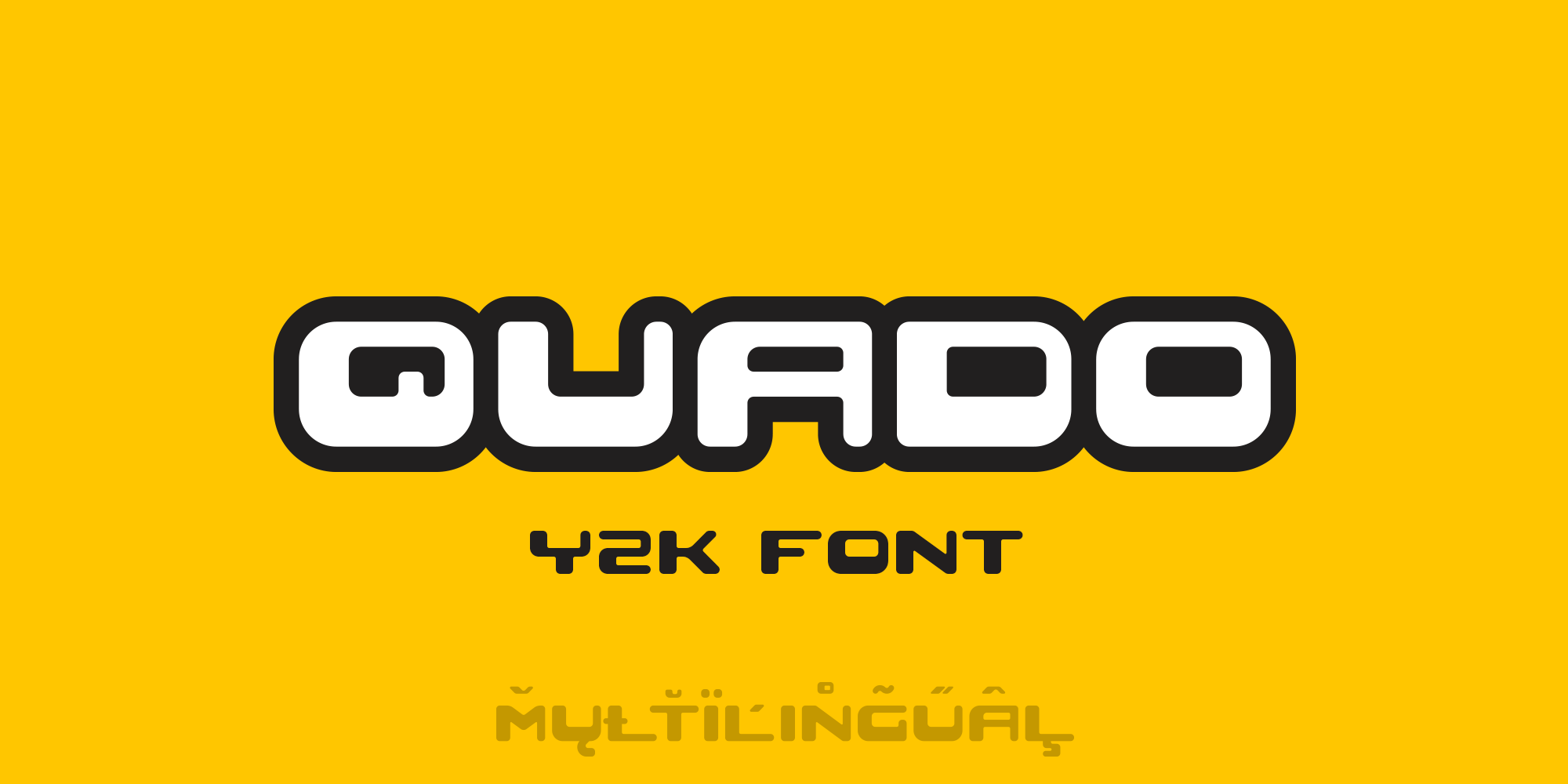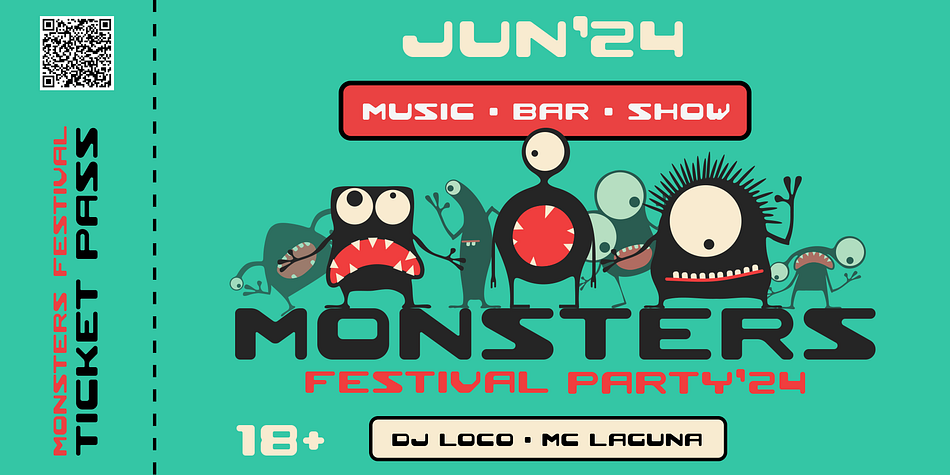
QUADO
Quado is a display font family published by Sentavio.
Quado is friendly Y2K style font designed for such areas as Music, Entertainment, Techno, Games & Applications etc.